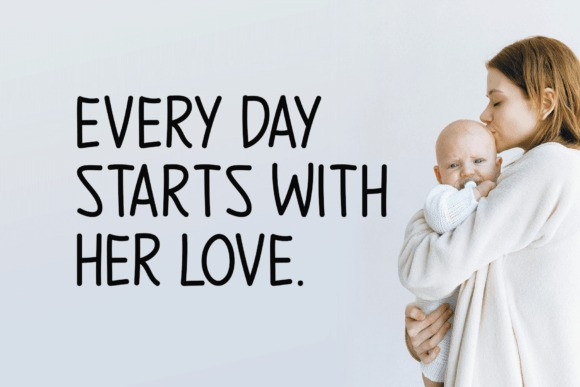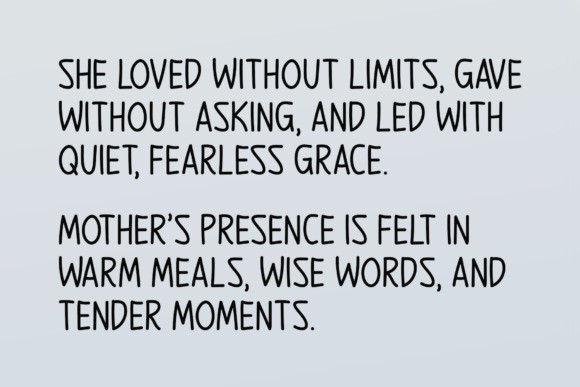
Mother Strength Font
Mother Strength Font is a charming handwritten font that blends elegance with a playful touch. Ideal for logos, apparel, invitations, website banners, social media posts, flyers, and printed materials, it brings a personal, crafted feel to any design. Its organic flow and stylish character make it a standout choice for projects that need a warm, handmade vibe.